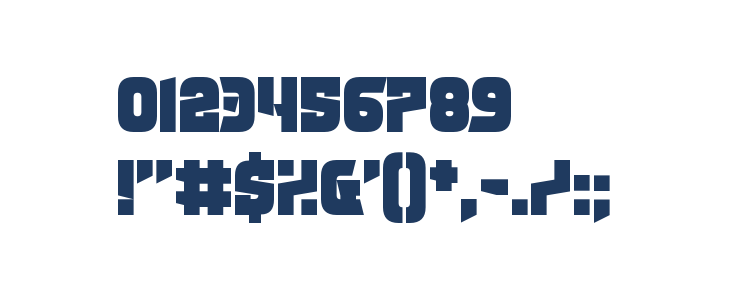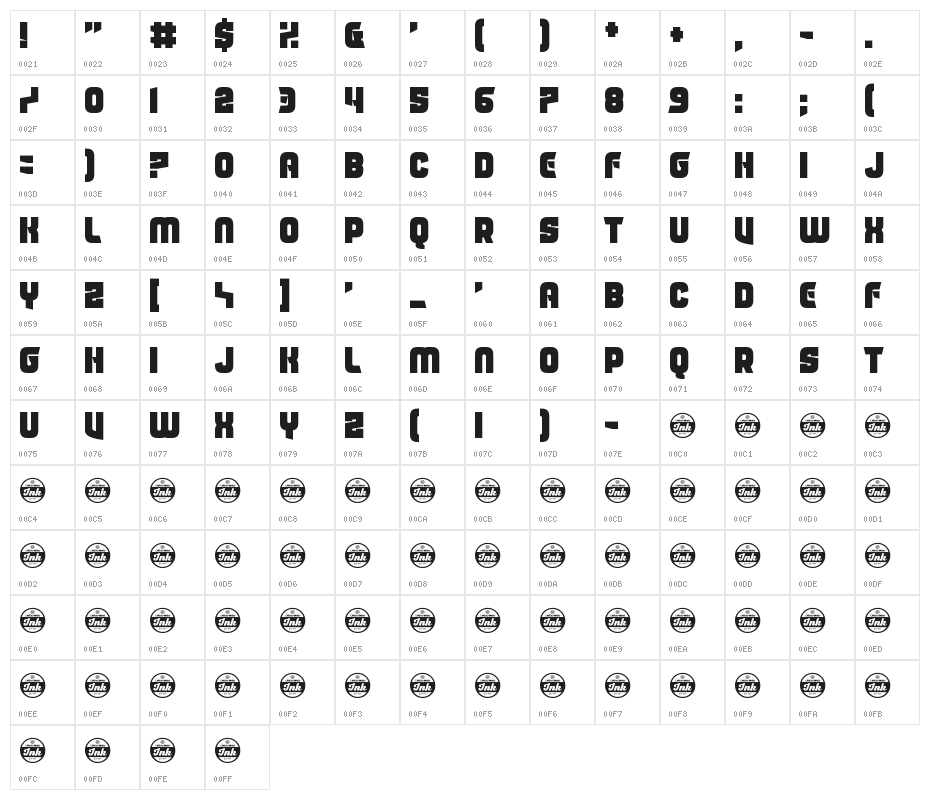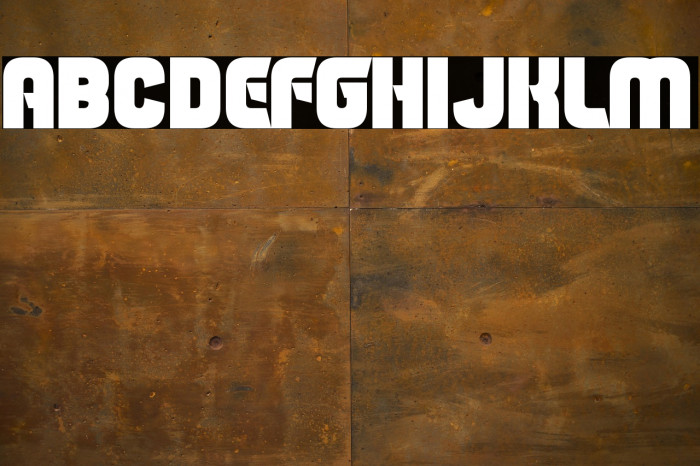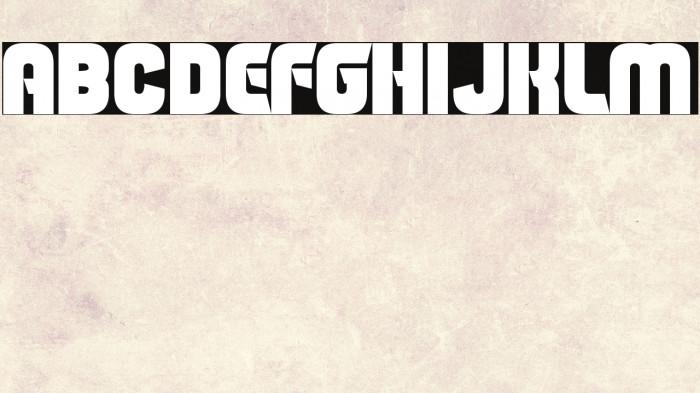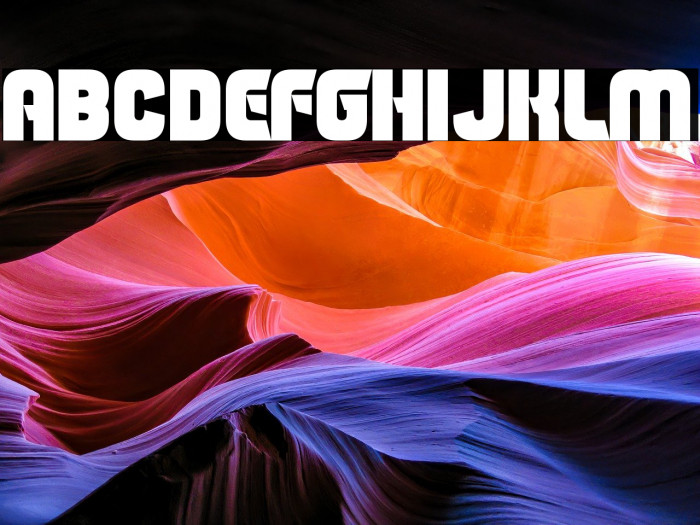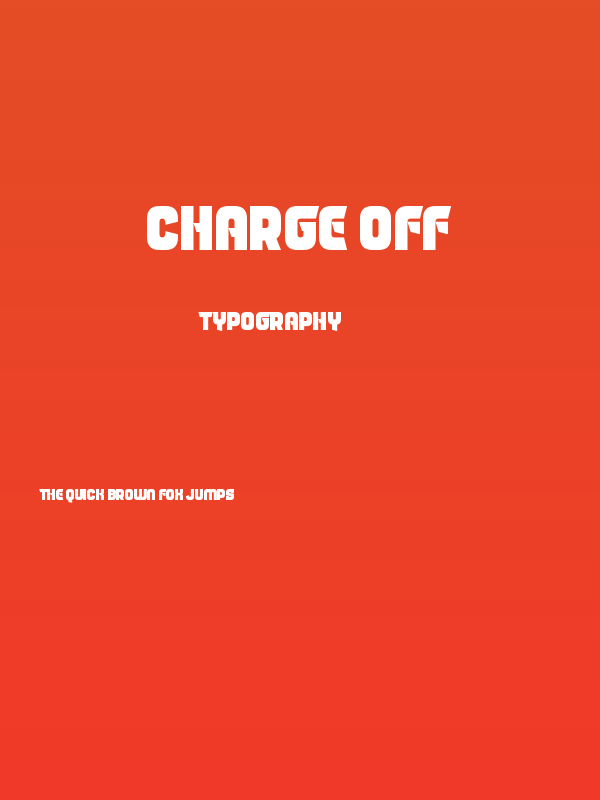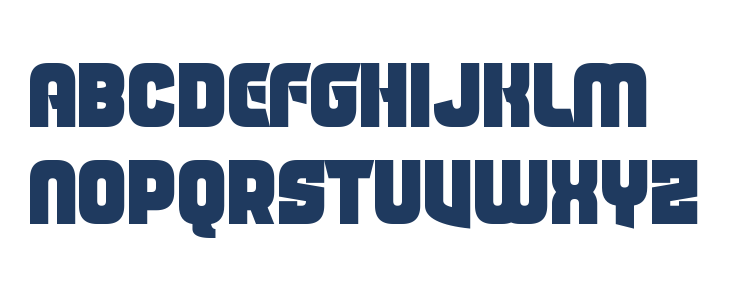
Charge Off Font
Charge Off Description
This font features a bold, geometric design with a strong presence. The characters are constructed with thick strokes and sharp angles, creating a sense of power and modernity. The uppercase letters are particularly striking, with a uniform height and width that gives them a block-like appearance. The lowercase letters maintain the same boldness, ensuring consistency across the typeface. Numbers and special characters are equally robust, with unique cuts and angles that add to the font's distinctive style. The overall effect is one of strength and impact, making it ideal for attention-grabbing designs.